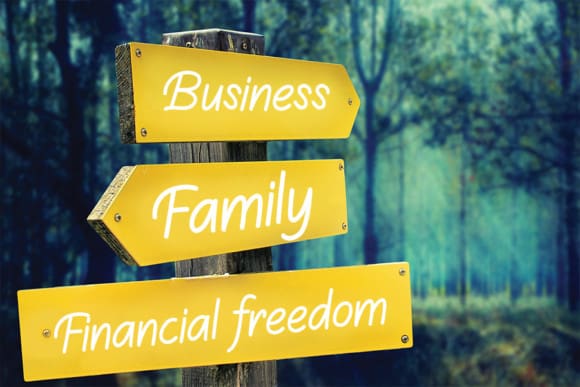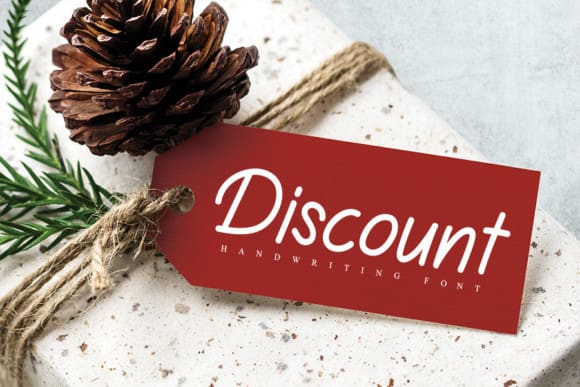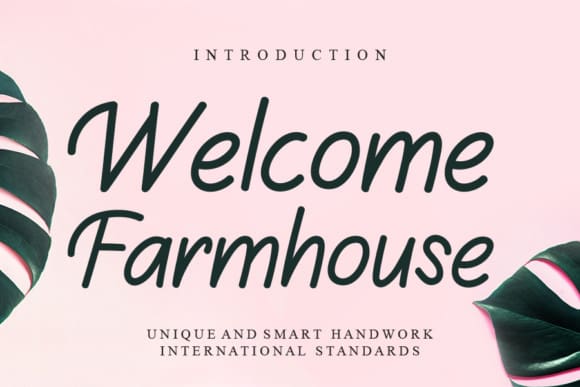
Welcome Farmhouse Font
Welcome Farmhouse Font, a stylish and unique script font. It will look stunning on posters, thank you cards, quotes, greeting cards, logos, business cards and every other design which needs a creative touch.